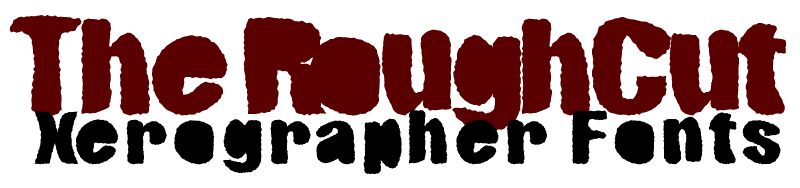
RoughCut by Xerographer Fonts is a free distorted comic display font with massive, tightly packed letters and ragged contours. Blunt curves and small edge nicks keep every silhouette restless.
Posters are its strongest setting, especially for comedy nights, noisy music events, or film promotions. It also suits snack packaging and youth merchandise, where the lettering becomes a torn-paper graphic rather than a neutral caption. That rough, oversized voice is most convincing when the type itself supplies the poster image.